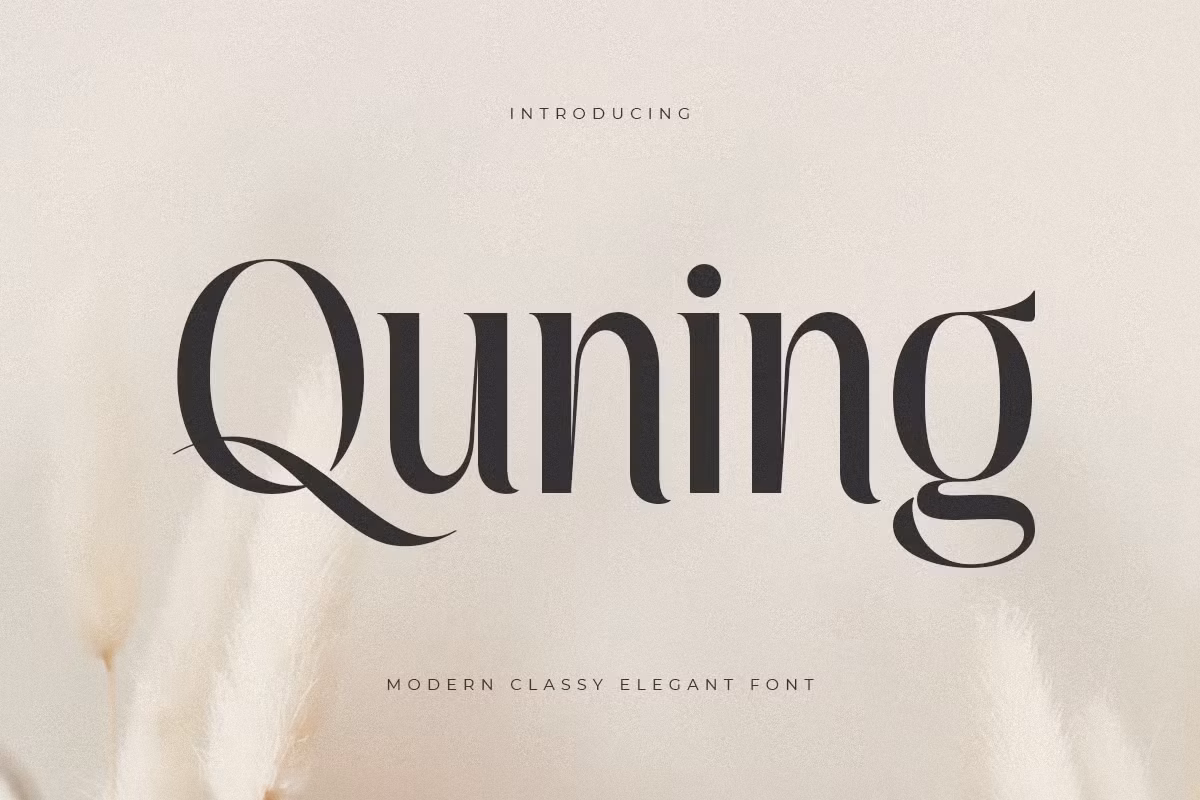
Quning Modern Classy Elegant Font Free Download is a unique display serif font that embodies luxury, elegance, and modernity. Crafted by Sensatype Studio, Quning is designed to add a classy and sophisticated touch to your branding and design projects.
Quning includes uppercase and lowercase letters, numbers, punctuation, ligatures, and offers multilingual support. Its distinctive design makes it suitable for beauty-themed projects, logos, and other creative endeavors that require a refined aesthetic.